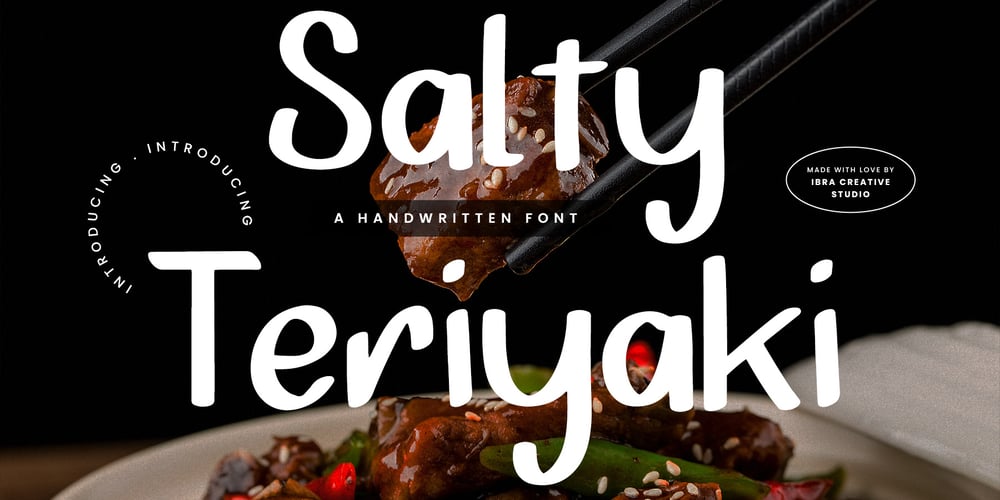
Salty Teriyaki Font Family was designed by Roisatul Azizah and published by IbraCreative. Salty Teriyaki contains 1 styles and family package options. Salty Teriyaki – A Handwritten TypefaceSalty Teriyaki, a captivating handwritten font, exudes a distinctive charm that effortlessly blends elegance with a touch of playfulness. Its strokes carry the warmth of handcrafted characters, resembling the fluidity of ink gracefully flowing onto paper. The letters dance with a casual yet refined demeanor, creating an inviting and personalized feel. Salty Teriyaki’s unique design is reminiscent of the organic irregularities found in handwritten scripts, infusing a sense of authenticity into digital spaces. Whether used for invitations, branding, or creative projects, this font introduces a delightful fusion of style and individuality, adding a tasteful and artistic flair to any design endeavor. Salty Teriyaki is perfect for branding projects, logo, wedding designs, social media posts, advertisements, product packaging, product designs, label, photography, watermark, invitation, stationery, game, fashion and any projects.Fonts include multilingual support for; Afrikaans, Albanian, Czech, Danish, Dutch, English, Estonian, Finnish, French, German, Hungarian, Italian, Latvian, Lithuanian, Norwegian, Polish, Portuguese, Slovak, Slovenian, Spanish, Swedish.